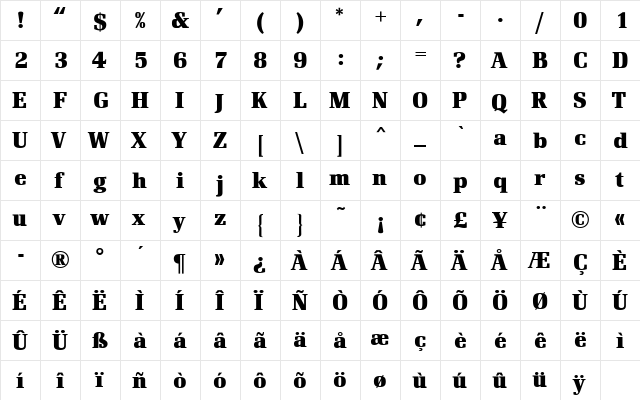
Renault MN Bold
Design Context for Renault MN Typeface
Renault MN takes a measured approach to typography — its balanced proportions and neutral character make it a reliable workhorse for both digital and print work. Its bold stroke weight gives it real presence on the page.